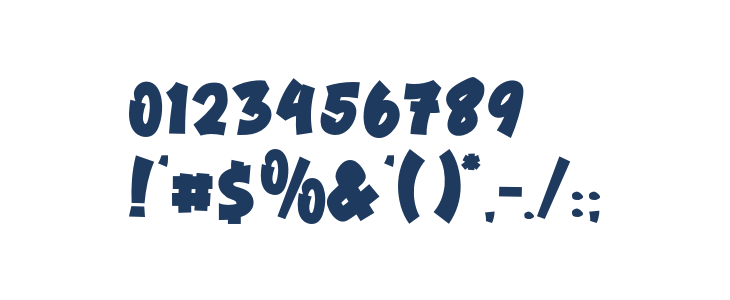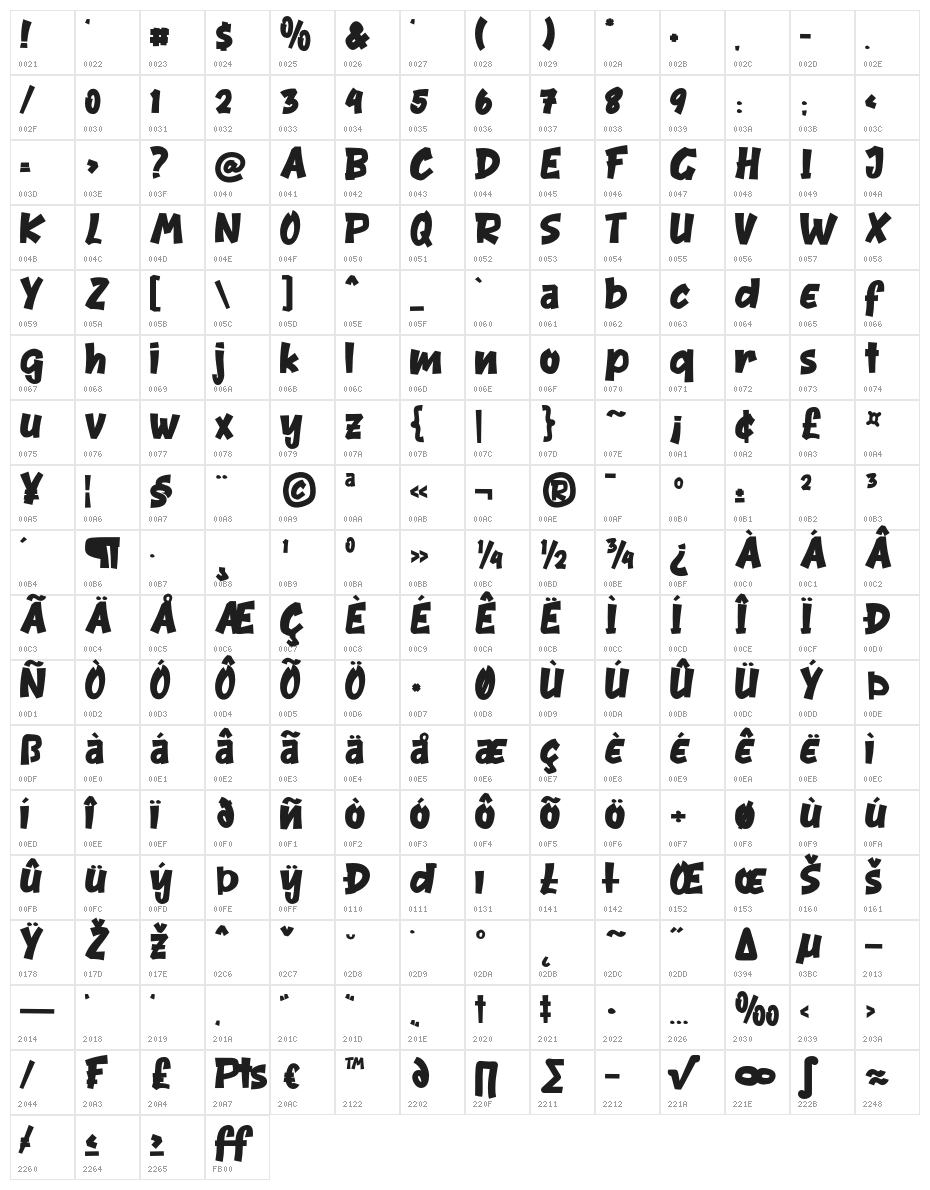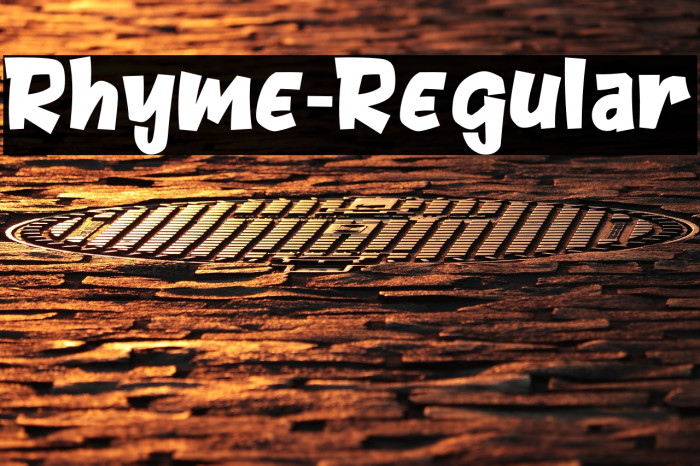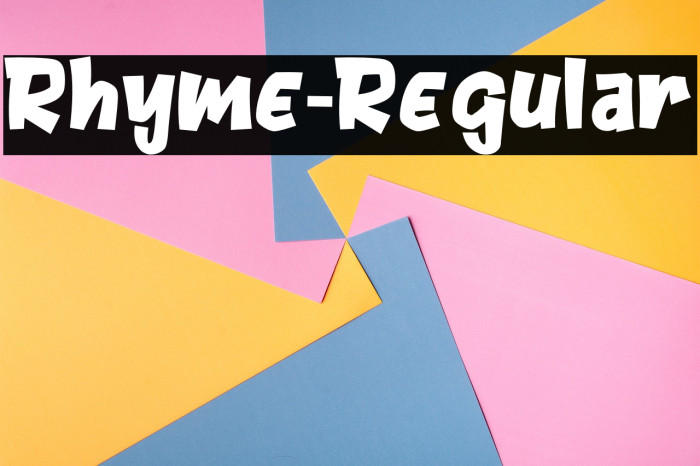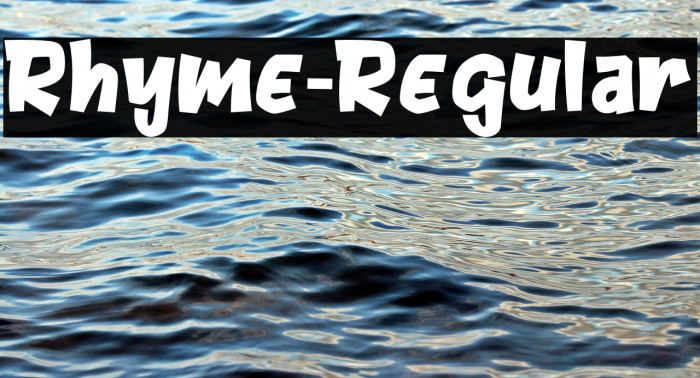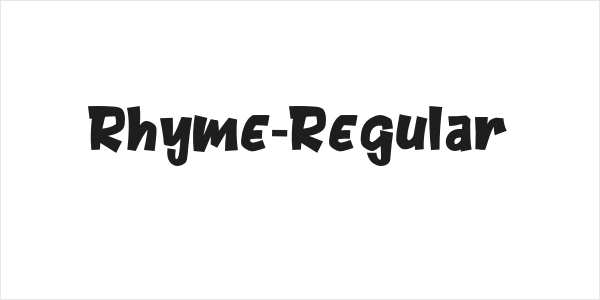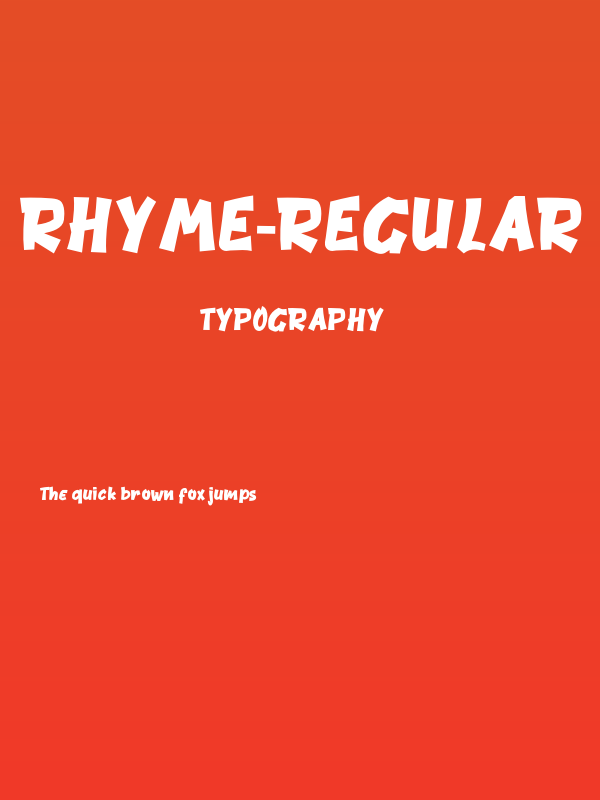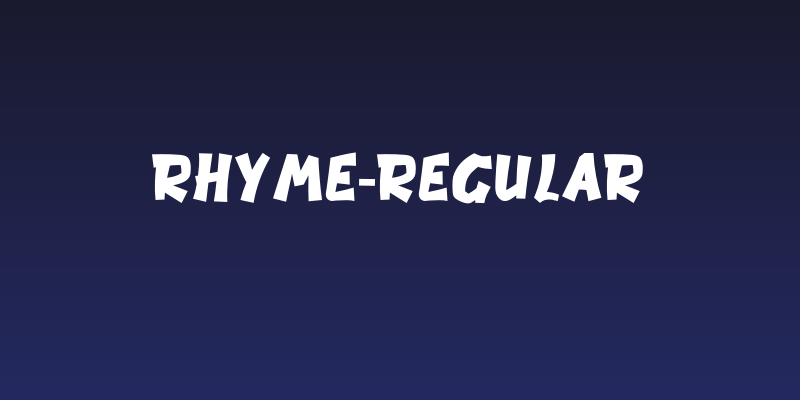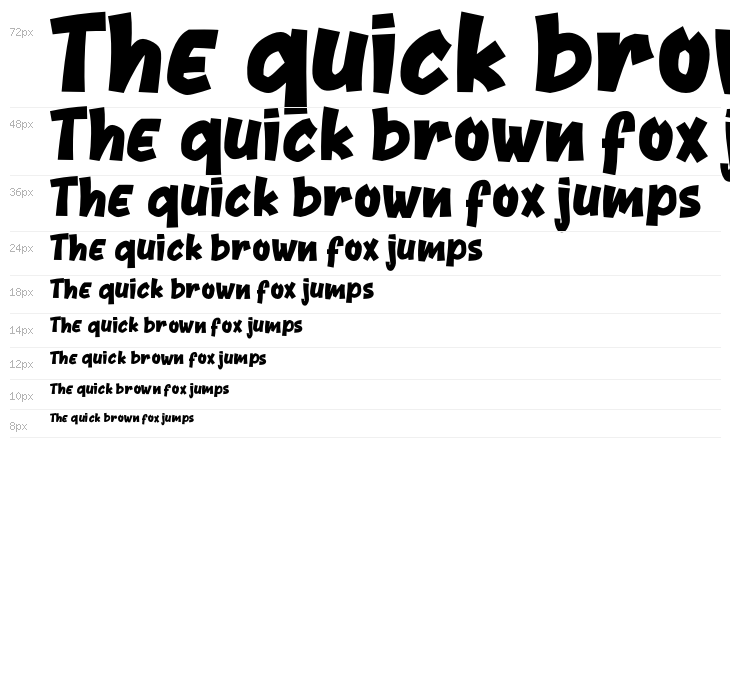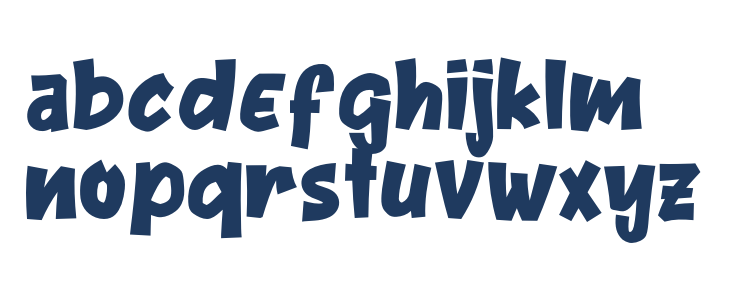
Rhyme-Regular Font
Rhyme-Regular Description
This font features a playful and bold design with exaggerated curves and angles, giving it a lively and dynamic appearance. The characters are thick and robust, with a slightly irregular shape that adds to its whimsical charm. The uppercase and lowercase letters maintain a consistent style, while the numbers and special characters complement the overall aesthetic. This font's unique personality makes it stand out, making it suitable for creative and fun projects.
| Proposed Projects | Ideal for children's books, comic strips, playful branding, and event posters. |